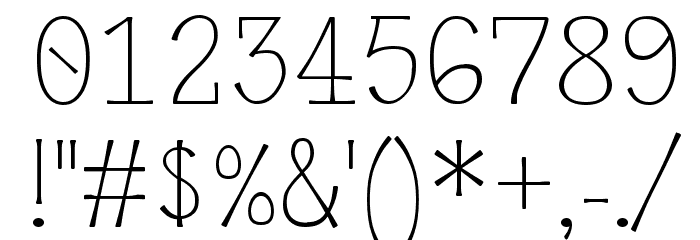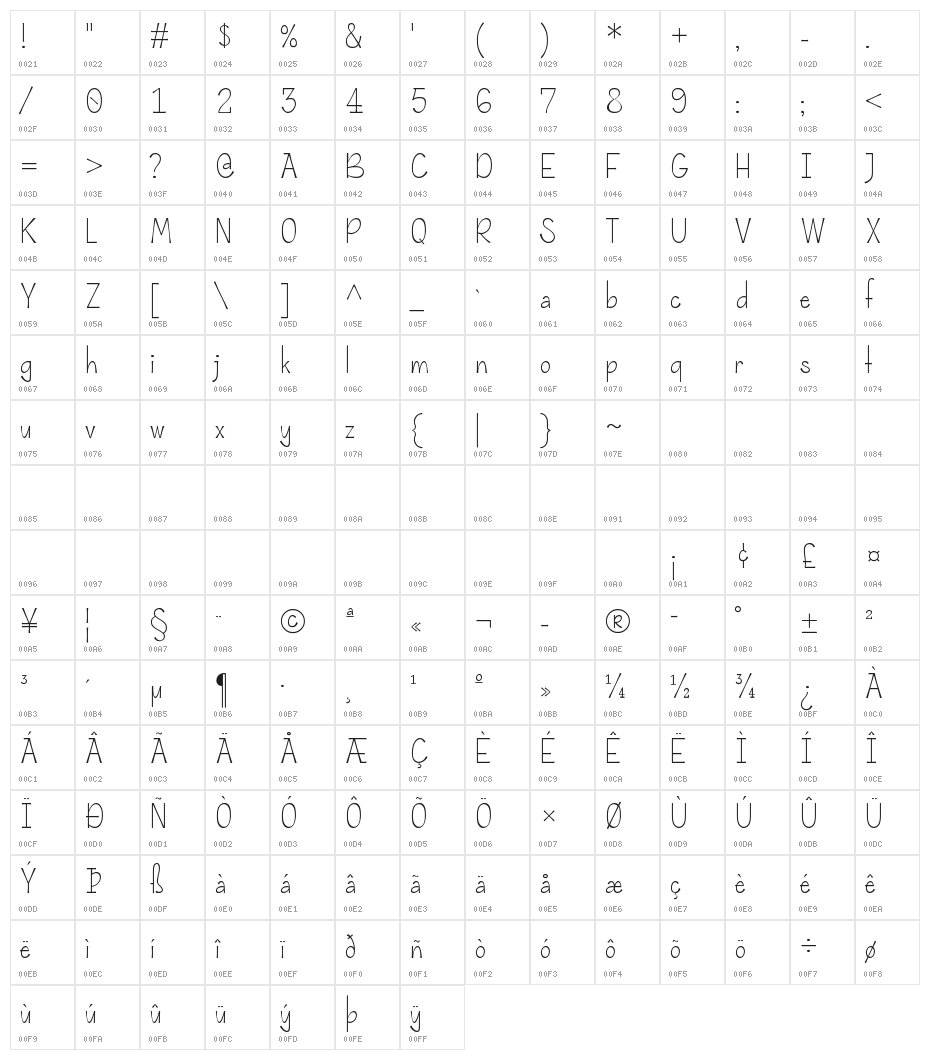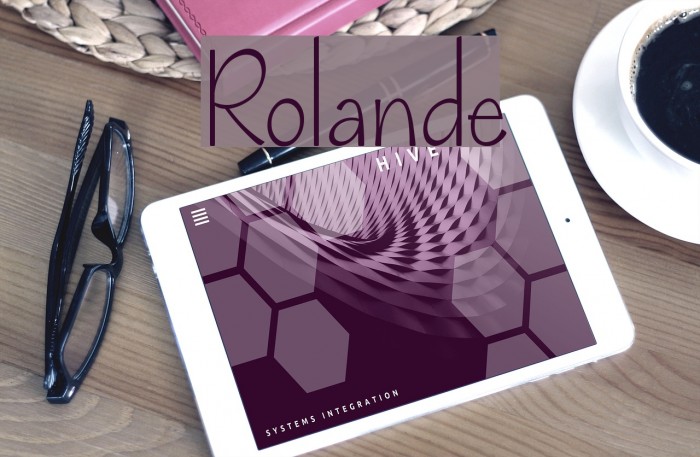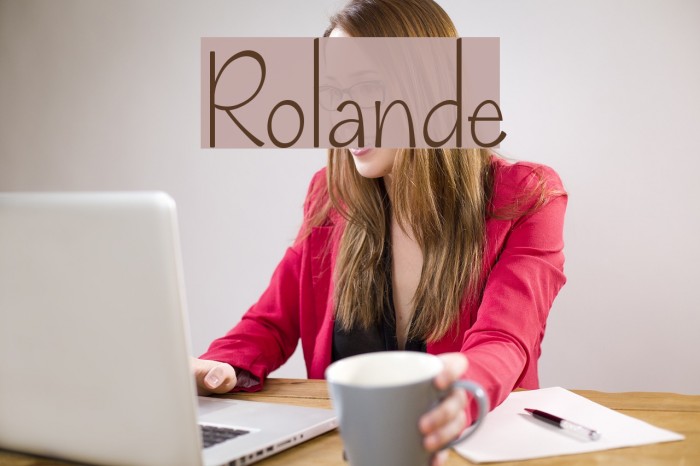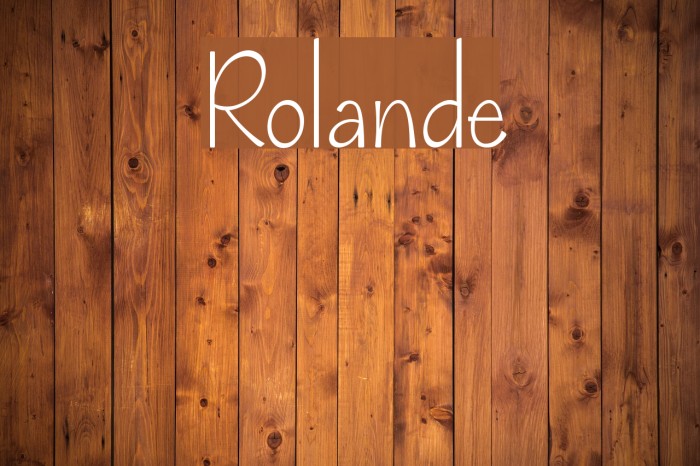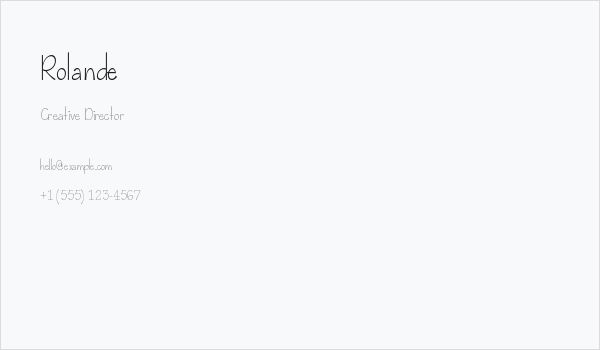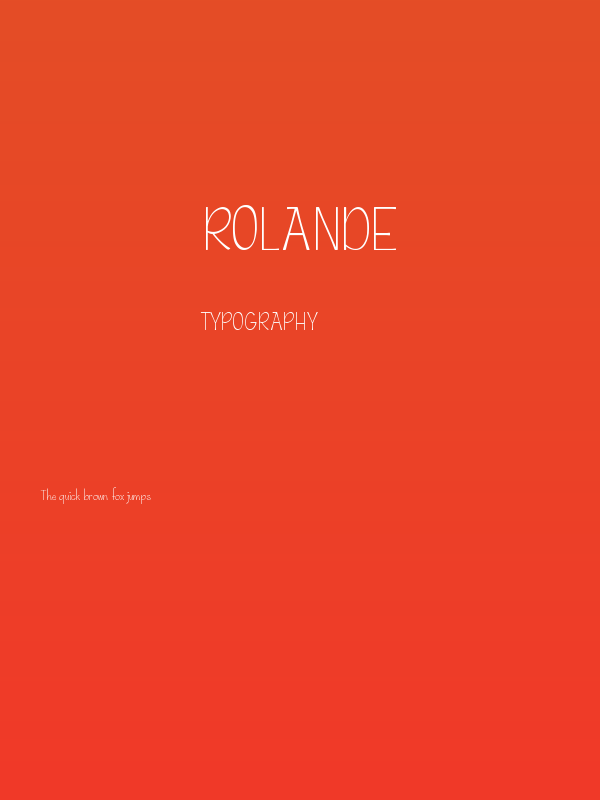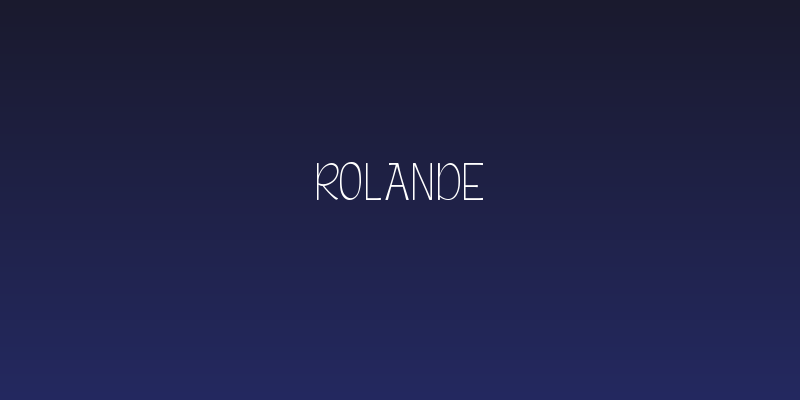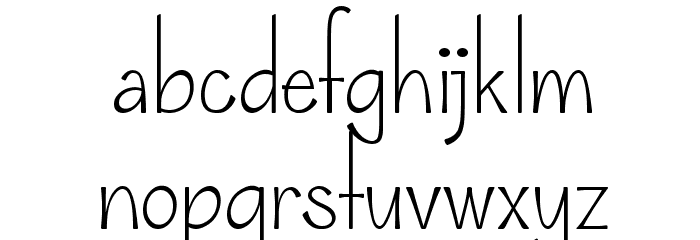
Rolande Font
Rolande Description
This font features a playful and whimsical design with tall, narrow letters that have a hand-drawn quality. The strokes are consistent in width, giving it a clean and modern appearance. The uppercase letters are slightly taller than the lowercase, and the characters have a slight slant, adding to the casual feel. The numerals are rounded and match the overall style, while the special characters maintain the same playful aesthetic. This font is ideal for projects that require a friendly and approachable look, such as children's books, greeting cards, or casual branding.
| Proposed Projects | Ideal for children's books, greeting cards, casual branding, and playful designs. |